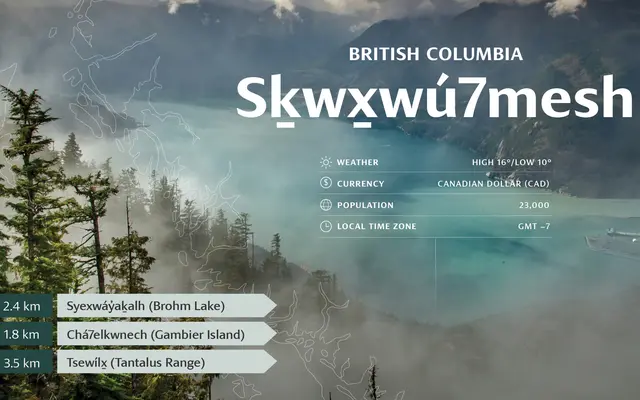
Skeena Indigenous
A humanist sans-serif by John Hudson and Paul Hanslow, built specifically to support the orthographic needs of Indigenous languages across North America.
Designed by John Hudson and Paul Hanslow at Tiro Typeworks with assistant designer Kaja Słojewska, Skeena Indigenous carries 736 glyphs to cover the specialised diacritics, modified letters and extensions required by Indigenous language communities. Twelve static styles run from Regular to Black with matching italics, accompanied by two variable font files. The family is distributed free, with full sources and build tools available via GitHub, and is included in the Microsoft font library.
Skeena Indigenous is a humanist sans-serif designed with extended Latin coverage for Indigenous languages of North America, including specialised diacritics and characters not found in standard Latin character sets.